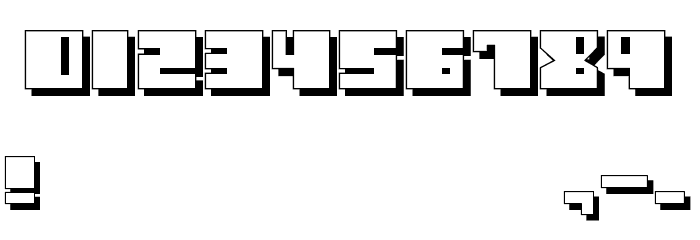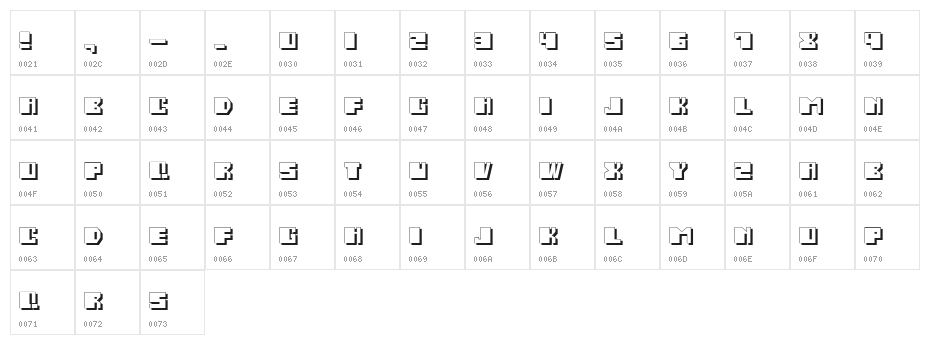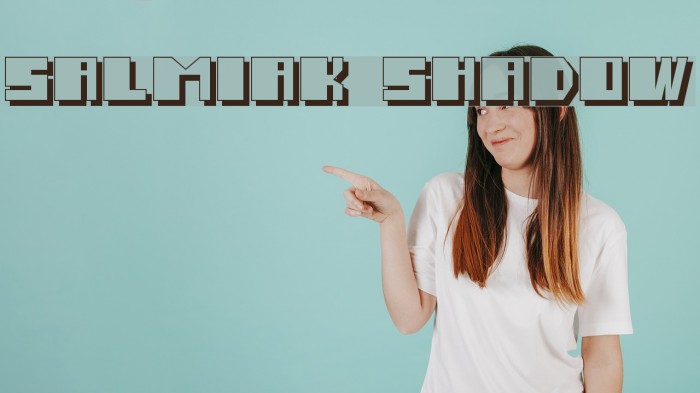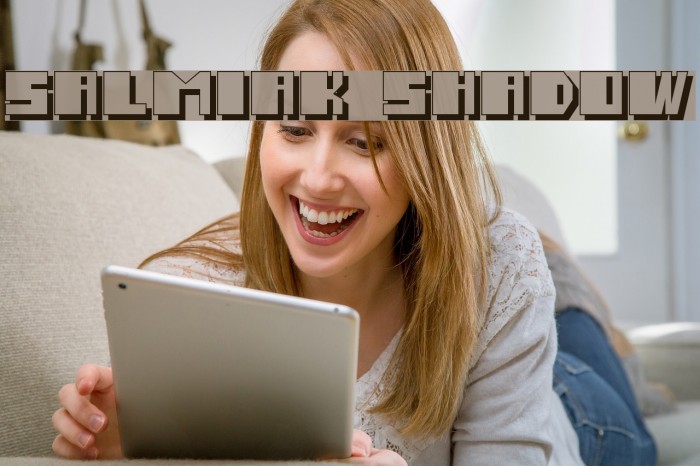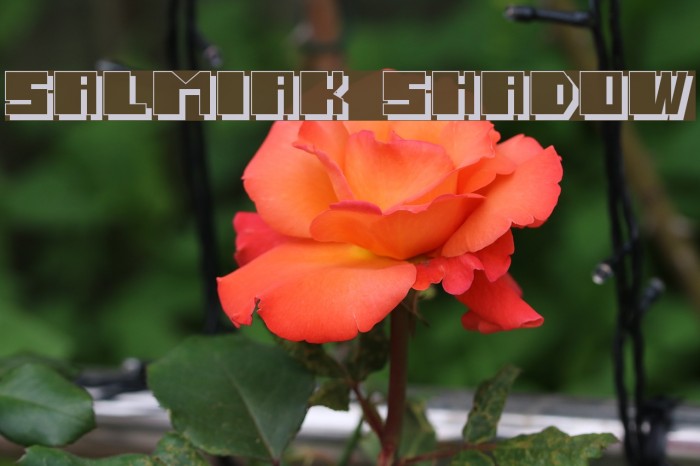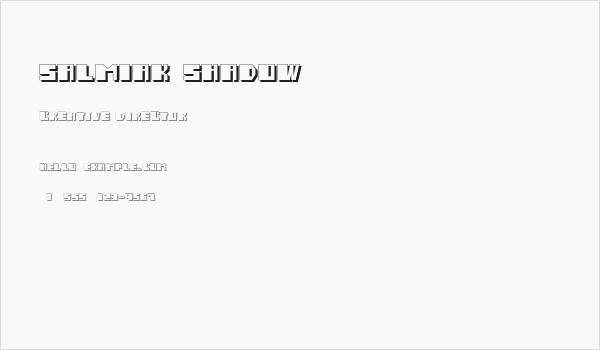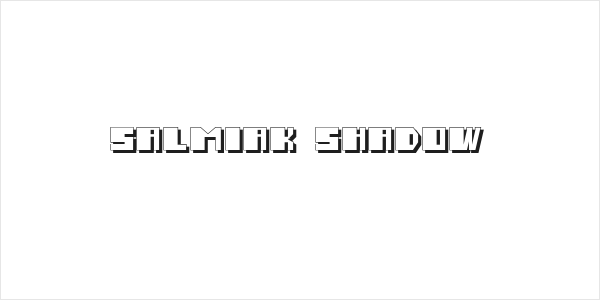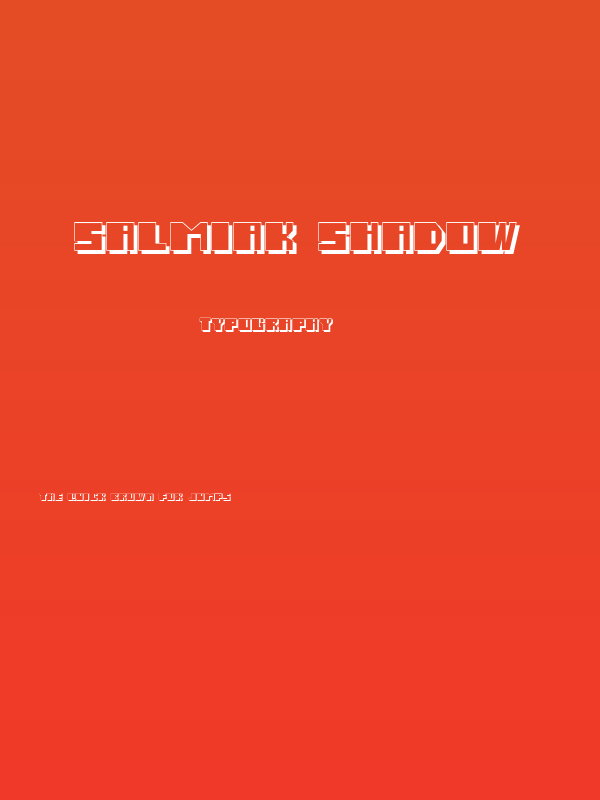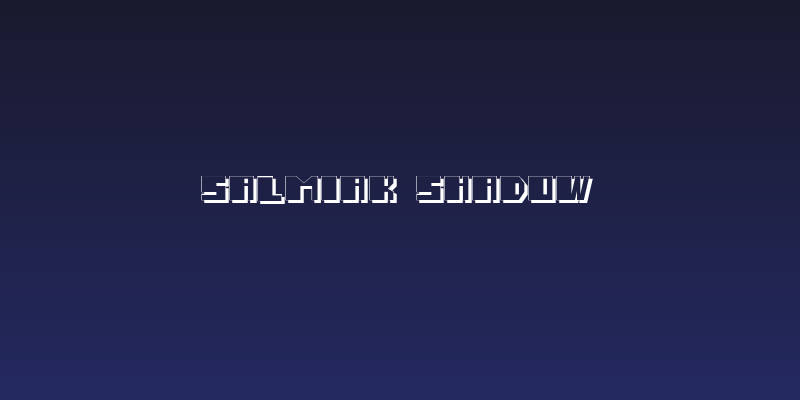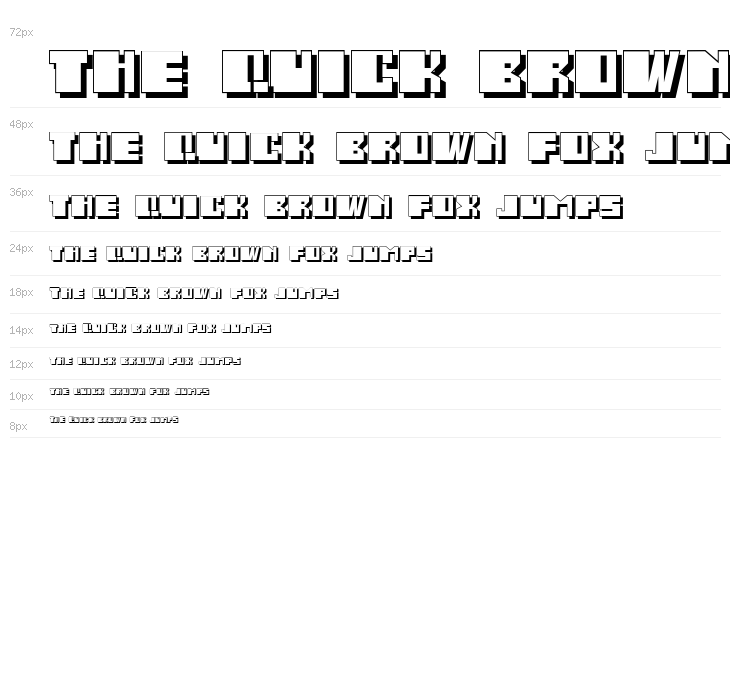
Salmiak Shadow Font
Salmiak Shadow Description
This font features a bold, geometric style with a distinct shadow effect that gives it a three-dimensional appearance. The characters are blocky and angular, with sharp edges and a consistent thickness throughout. The shadow adds depth and a sense of movement, making it stand out on any page. The uppercase and lowercase letters maintain a uniform structure, while the numbers and special characters follow the same design principles, ensuring a cohesive look. This font is ideal for projects that require a strong visual impact and a modern, edgy feel.
Proposed ProjectsIdeal for posters, headlines, video game graphics, and branding materials that require a modern and impactful look.